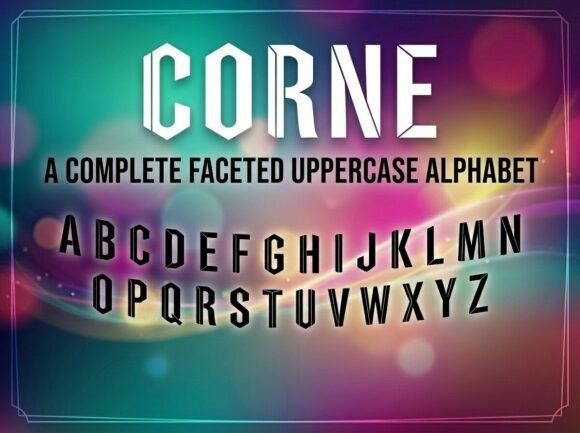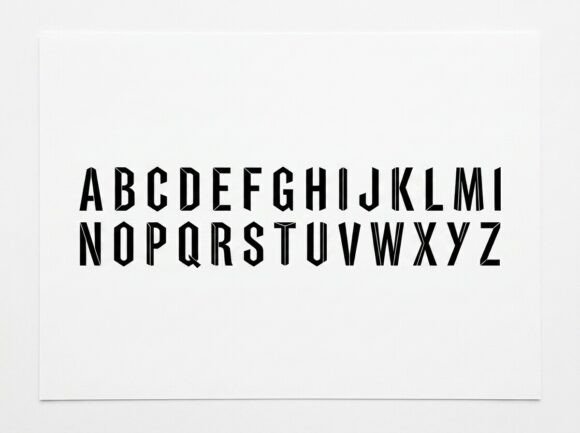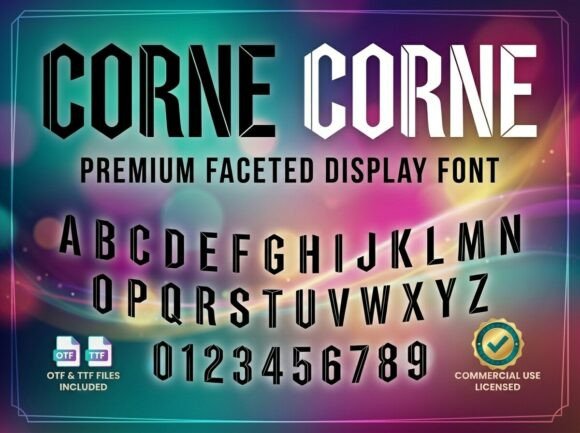
Add a Touch of Elegance to Your Designs with Corne Font
In the world of typography, fonts play a crucial role in conveying the tone and personality of a brand or design. For those seeking to add a touch of sharp, architectural elegance to their creations, Corne font is an exceptional choice. This premium faceted display font seamlessly bridges the gap between vintage charm and modern precision, making it perfect for luxury branding, upscale signage, spirit labels, and high-end editorial headers.
The Unique Characteristics of Corne Font
Corne font features tall, condensed letterforms that are characterized by a unique “chiseled” or beveled aesthetic. This distinctive design creates a sophisticated three-dimensional effect, adding depth and visual interest to any text. The high-impact silhouette and clean geometric lines of Corne font make it an outstanding choice for designers seeking to create a lasting impression.
Vintage Charm Meets Modern Precision
One of the standout features of Corne font is its ability to blend vintage charm with modern precision. The font’s classic, elegant design is reminiscent of traditional serif fonts, while its clean lines and precise geometry give it a distinctly modern feel. This unique blend of old and new makes Corne font an excellent choice for designers seeking to create a sense of timeless prestige and artisanal craftsmanship in their work.
Perfect for Luxury Branding and High-End Design
Corne font is perfectly suited for luxury branding, upscale signage, spirit labels, and high-end editorial headers. Its sophisticated design and elegant aesthetic make it an excellent choice for boutique jewelry brands, high-end fashion labels, and luxury goods manufacturers. Whether you’re creating a logo, signage, or packaging, Corne font is sure to make a lasting impression.
Versatility and Creative Freedom
One of the benefits of Corne font is its versatility. Its unique design and elegant aesthetic make it suitable for a wide range of design applications, from logos and branding to signage and editorial headers. Additionally, Corne font is easy to use and customize, giving designers the creative freedom to experiment with different styles and effects.
Crafting Timeless Designs with Corne Font
For designers and crafters seeking to create timeless designs that exude elegance and sophistication, Corne font is an exceptional choice. Its unique blend of vintage charm and modern precision makes it perfect for creating designs that are both classic and contemporary. Whether you’re working on a logo, signage, or editorial header, Corne font is sure to deliver a sense of prestige and artisanal craftsmanship to every word.
Key Features of Corne Font
- Tall, condensed letterforms with a unique “chiseled” or beveled aesthetic
- Sophisticated three-dimensional effect
- High-impact silhouette and clean geometric lines
- Perfect for luxury branding, upscale signage, spirit labels, and high-end editorial headers
- Versatile and suitable for a wide range of design applications
In conclusion, Corne font is a premium faceted display font that is sure to add a touch of sharp, architectural elegance to any design. Its unique blend of vintage charm and modern precision makes it perfect for luxury branding, upscale signage, spirit labels, and high-end editorial headers. With its sophisticated design, elegant aesthetic, and versatility, Corne font is an exceptional choice for designers and crafters seeking to create timeless designs that exude prestige and artisanal craftsmanship.